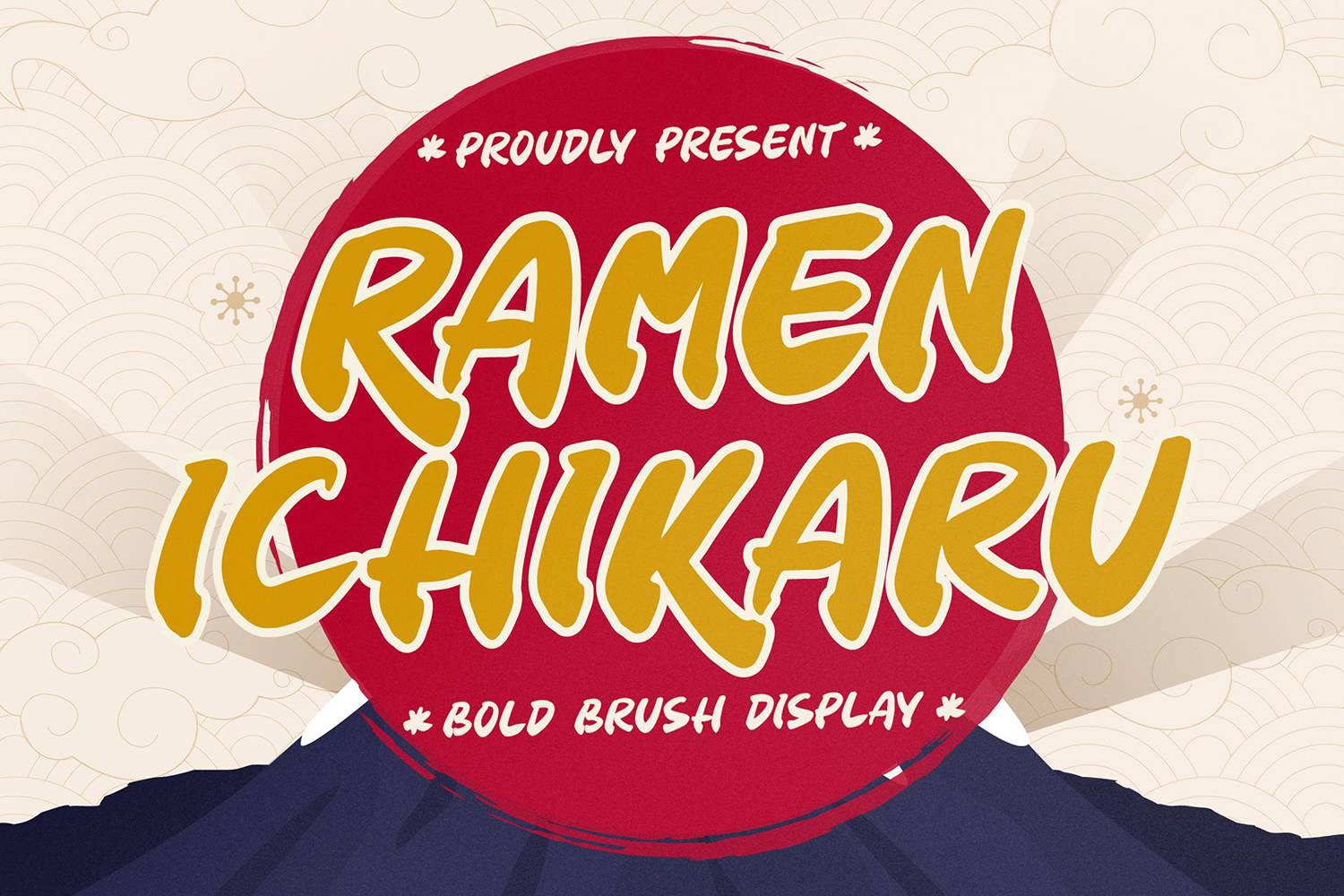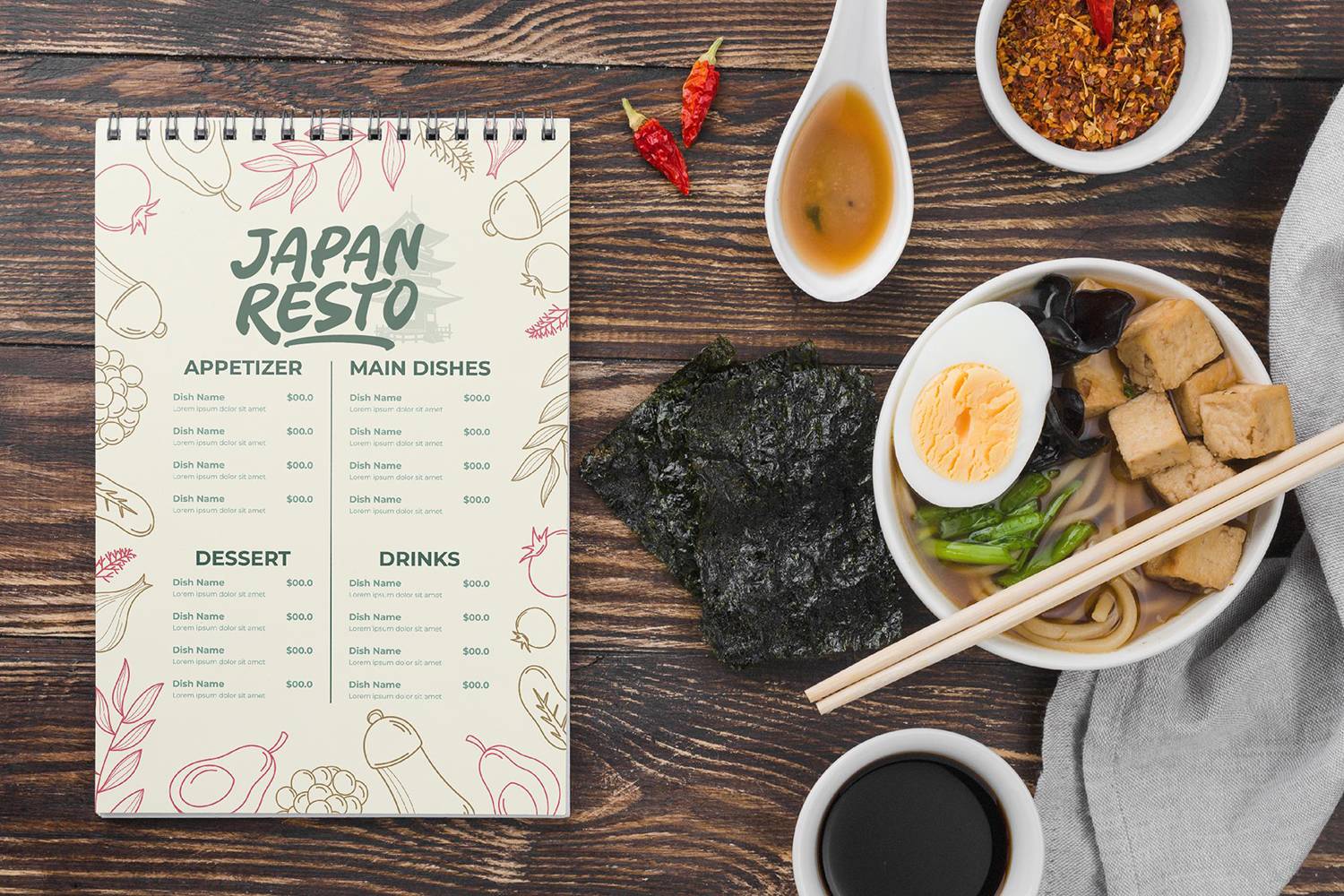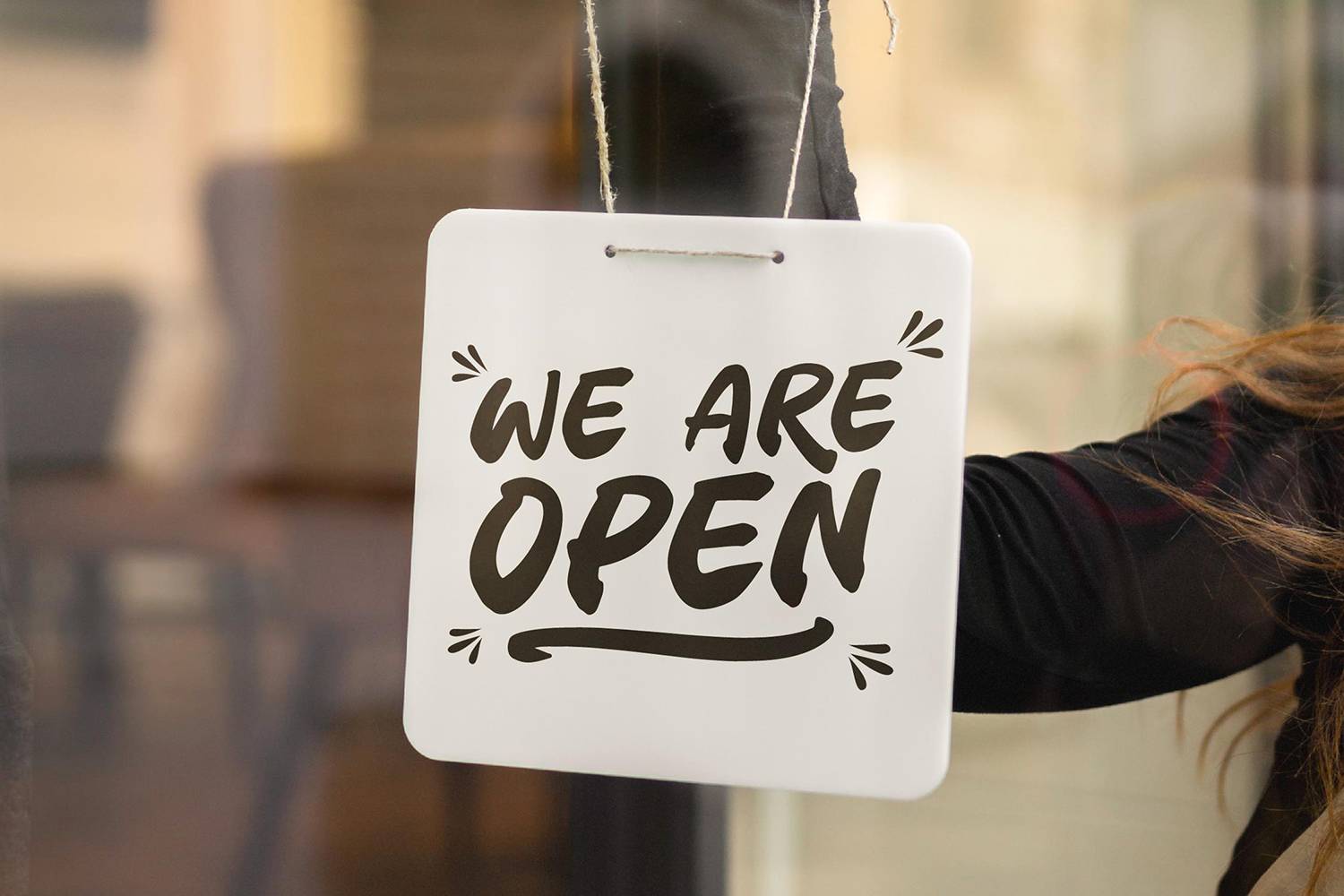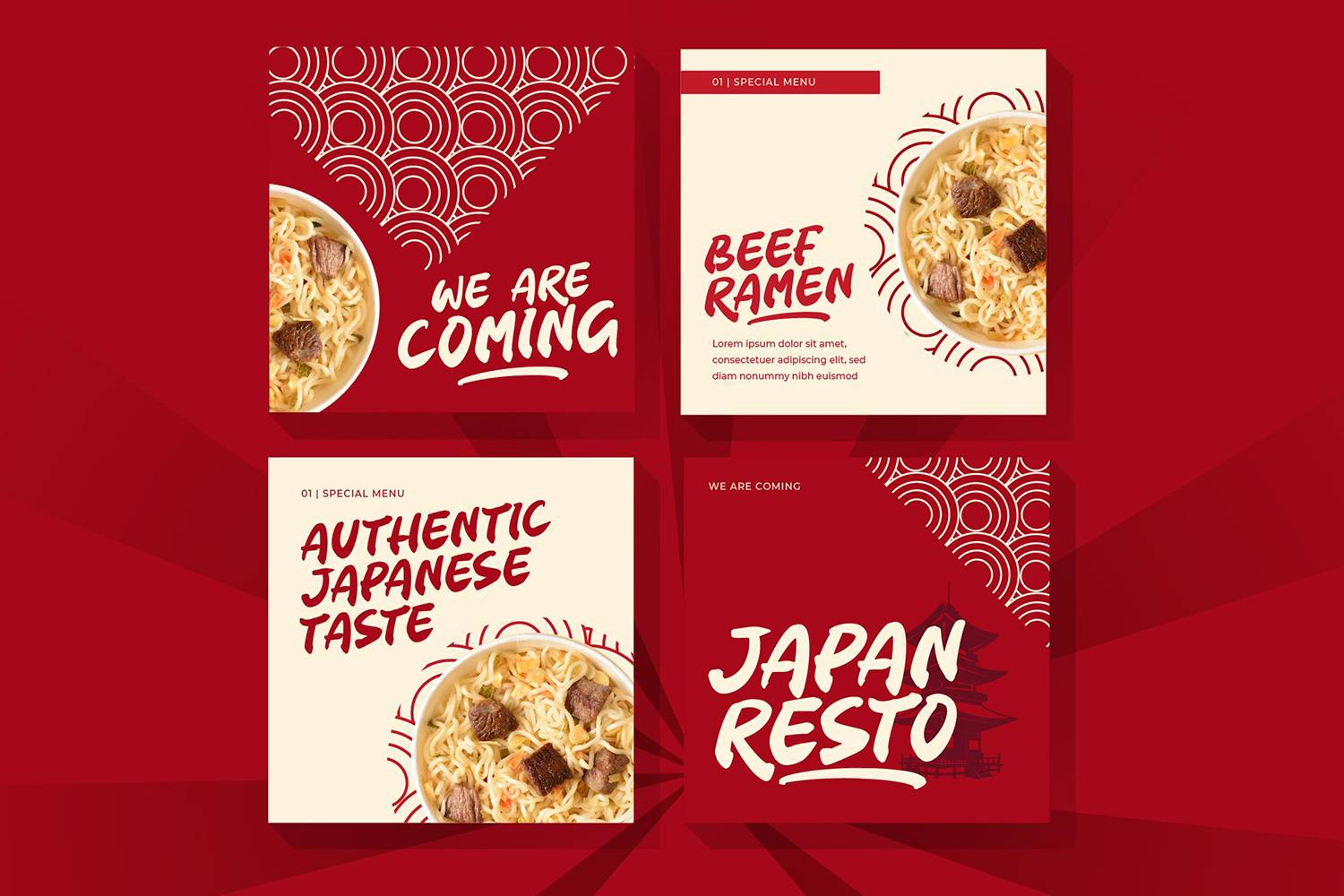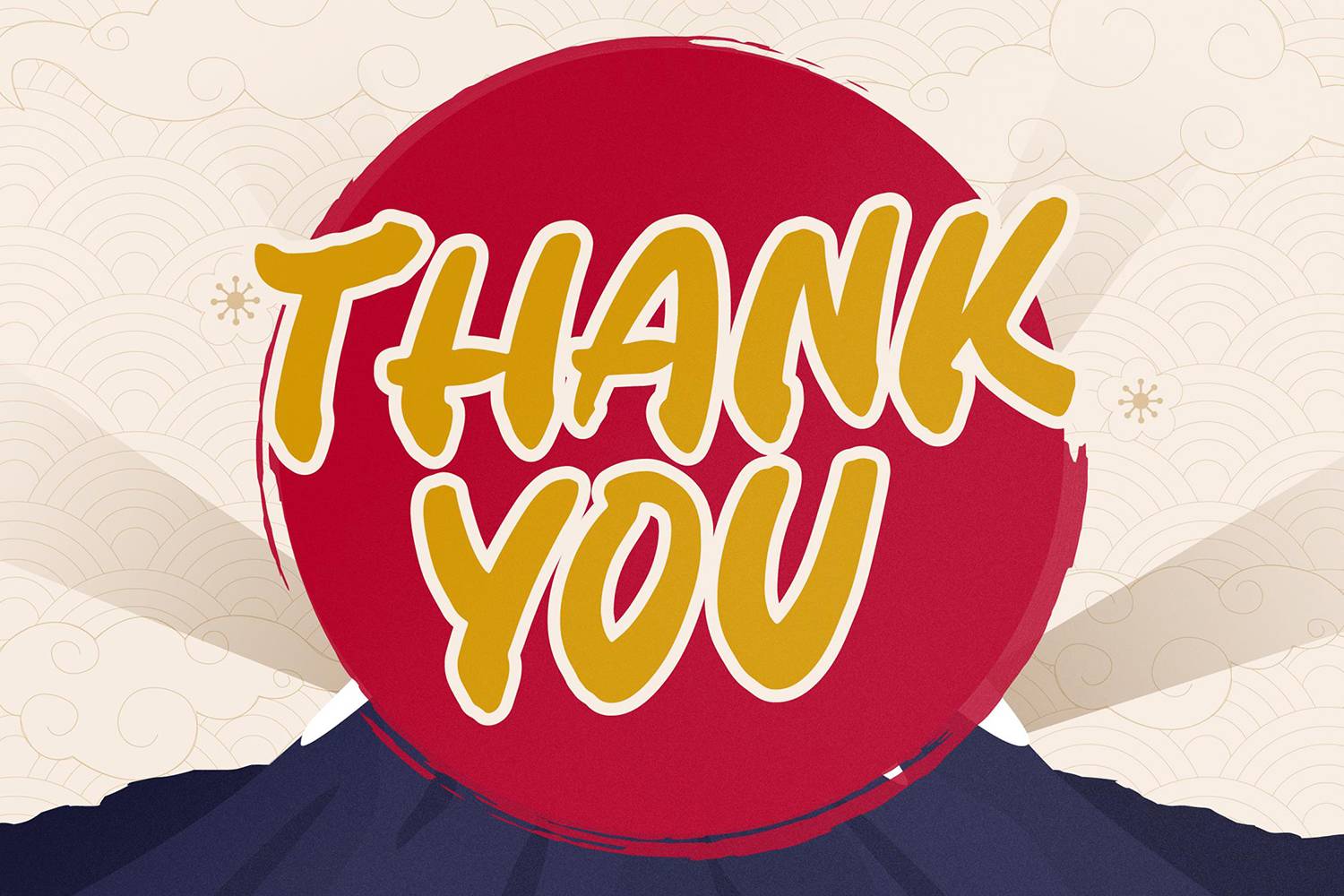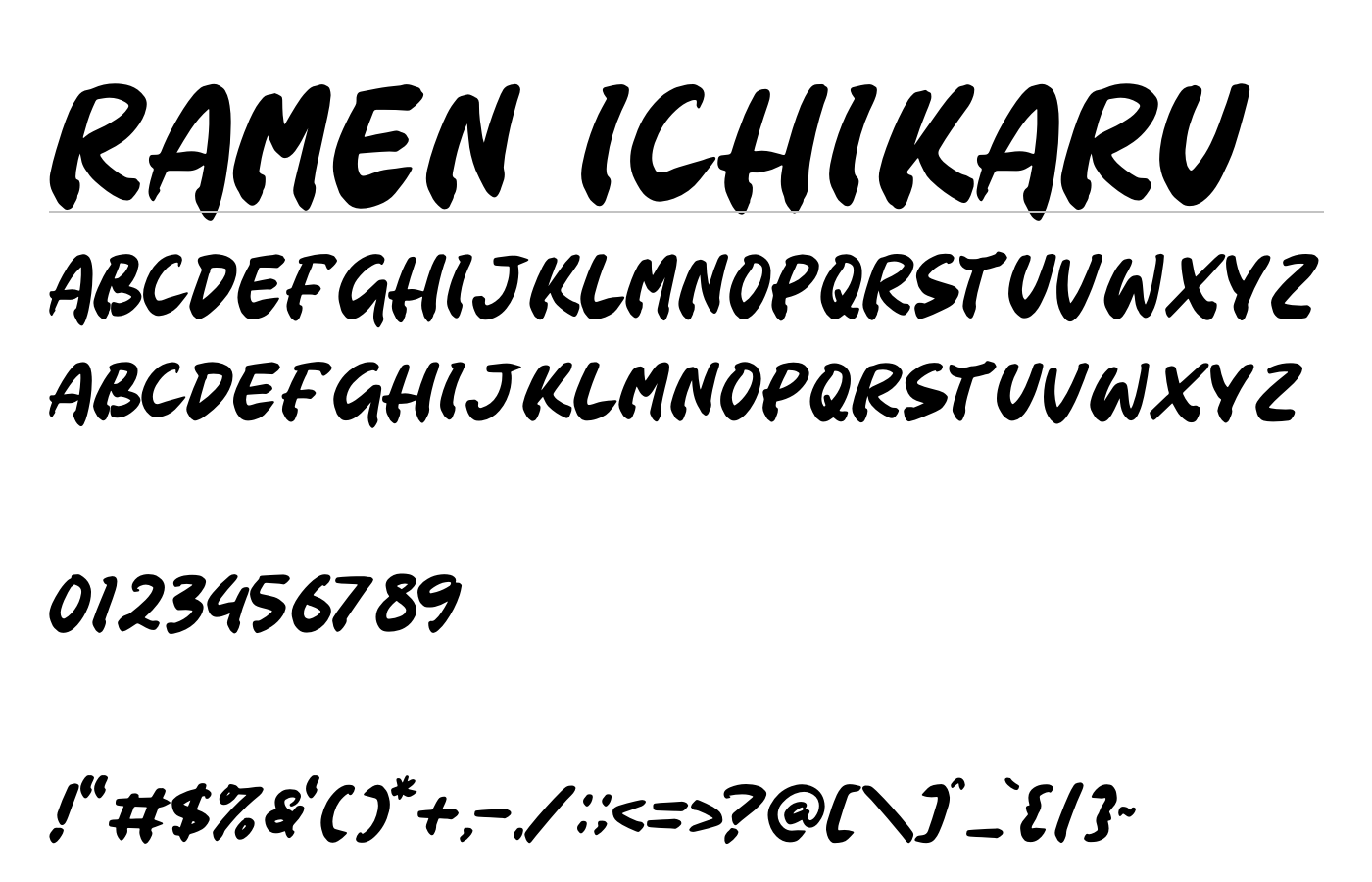
Ramen Ichikaru is a bold, playful brush script font with a lively, hand-drawn feel that adds energy and personality to any design. Its thick, rounded strokes and slightly irregular shapes create a casual yet dynamic style, making it ideal for branding, packaging, and headlines where a friendly and approachable vibe is desired. This font works beautifully in creative and informal contexts, especially for food-related or youthful brands seeking an engaging, authentic look.
Ramen Ichikaru Font
About Ramen Ichikaru Font